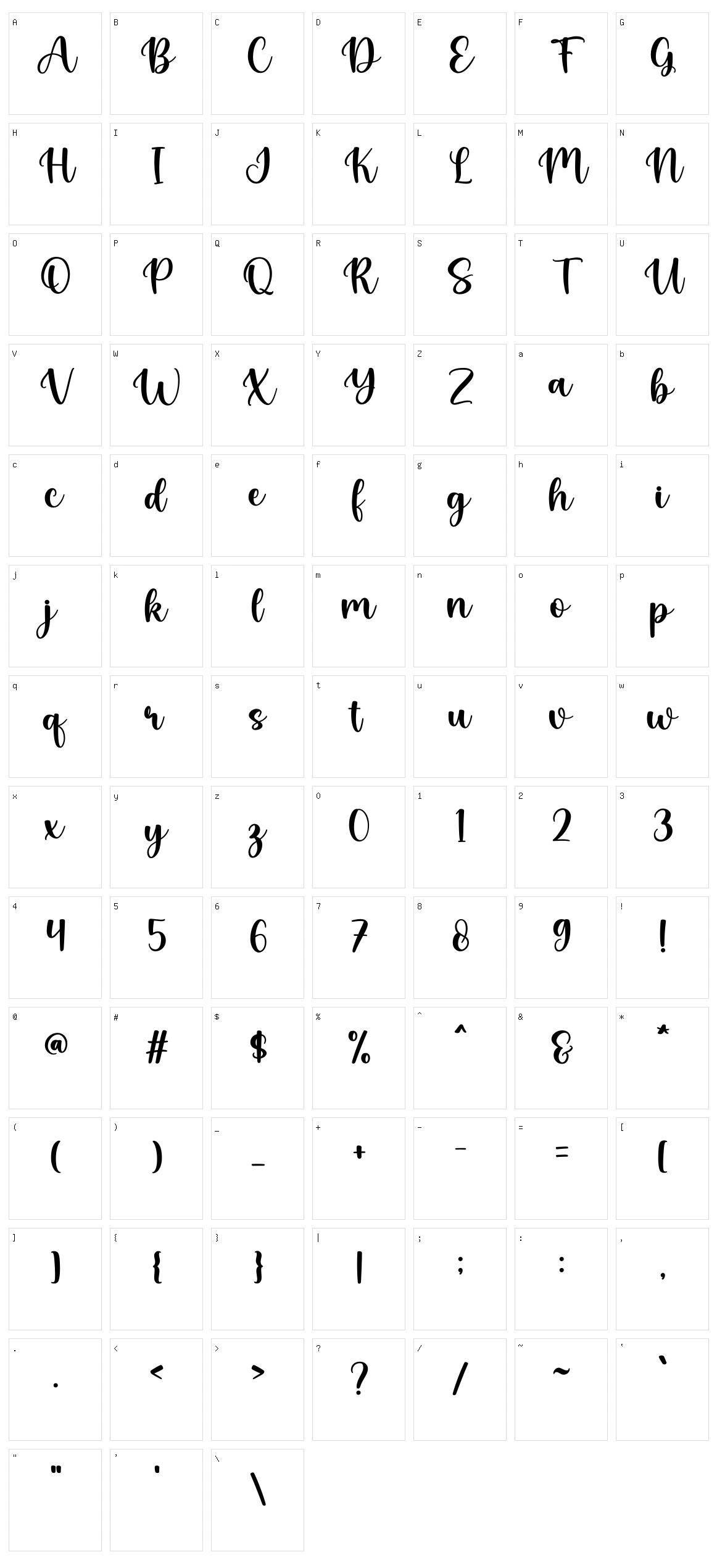
The free font Miranda is carefully designed by Graphix Line Studio, showcasing a thoughtful balance of creativity and usability and falls under the Script font style. When you download the ZIP file, it contains only 329.37 KB of font files, making it lightweight and quick to download. Please review the license details below to understand permitted usage and distribution rights. If license information is not available, we recommend using this font for personal projects only or contacting the author directly for commercial usage permissions.